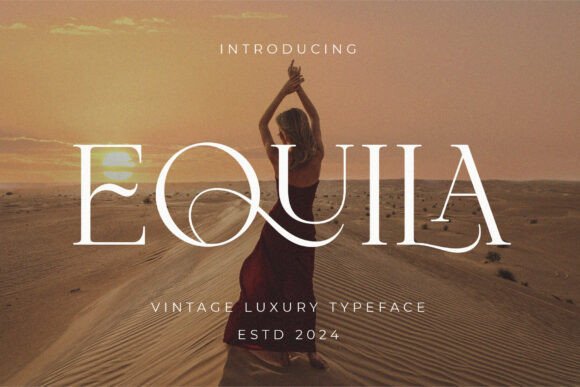
Equila Font: Elevate Your Design with Elegance and Sophistication
In the world of typography, fonts play a crucial role in conveying the tone and personality of a brand or design. Among the numerous typefaces available, Equila font stands out for its exceptional elegance and sophistication. This stunning display typeface boasts high contrast and beautiful curves, making it an ideal choice for designs that demand luxury and refinement.
What is Equila Font?
Equila font is a display typeface characterized by its high contrast and elegant curves. The font’s design is carefully crafted to exude a sense of luxury and sophistication, making it perfect for a wide range of applications, from elegant logos to classy editorial designs.
One of the key features of Equila font is its beautiful curves, which add a touch of refinement and poise to any design. The font’s curves are carefully designed to create a sense of fluidity and movement, making it perfect for designs that require a sense of dynamism and elegance.
Key Features of Equila Font
Equila font comes with a range of features that make it an attractive choice for designers. Some of the key features include:
- OpenType Features: Equila font includes OpenType features that allow users to access a range of alternative forms and styles.
- Range of Styles: The font comes in a range of styles, making it easy for users to choose the perfect style for their design.
- High Contrast: The font’s high contrast design creates a sense of drama and elegance, making it perfect for designs that require a touch of sophistication.
- Elegant Curves: The font’s beautiful curves add a touch of refinement and poise to any design.
Use Cases for Equila Font
Equila font is a versatile typeface that can be used in a wide range of applications. Some of the most popular use cases include:
- Elegant & Luxurious Logos: Equila font is perfect for creating elegant and luxurious logos that demand sophistication and refinement.
- Classy Editorial Designs: The font is ideal for classy editorial designs, such as women’s magazines, fashion brands, and cosmetic brands.
- Fashion Promotions: Equila font is perfect for fashion promotions, modern advertising designs, and invitation cards.
- Art Quotes: The font’s elegant curves and high contrast design make it perfect for art quotes and home decor.
- Book Titles/Covers: Equila font is ideal for book titles and covers, adding a touch of sophistication and elegance to any publication.
- Special Events: The font is perfect for special events, such as weddings, galas, and other high-end events.
Design Tips for Using Equila Font
To get the most out of Equila font, here are some design tips to keep in mind:
- Use it sparingly: Equila font is a display typeface, so it’s best to use it sparingly to create a sense of drama and emphasis.
- Pair it with a simple font: Pair Equila font with a simple font to create a sense of contrast and visual interest.
- Experiment with different styles: Equila font comes in a range of styles, so experiment with different styles to find the one that works best for your design.
- Pay attention to kerning: Pay attention to kerning to ensure that the font looks elegant and refined.
Benefits of Using Equila Font
There are many benefits to using Equila font in your designs. Some of the key benefits include:
- Elegance and Sophistication: Equila font adds a touch of elegance and sophistication to any design.
- Versatility: The font is versatile and can be used in a wide range of applications.
- High Readability: Equila font is highly readable, even at small sizes.
- Unique Design: The font’s unique design makes it stand out from other typefaces.
In conclusion, Equila font is a stunning display typeface that offers elegance, sophistication, and versatility. With its beautiful curves, high contrast design, and range of styles, it’s perfect for a wide range of applications, from elegant logos to classy editorial designs. By following the design tips outlined above, you can get the most out of Equila font and create stunning designs that demand attention.